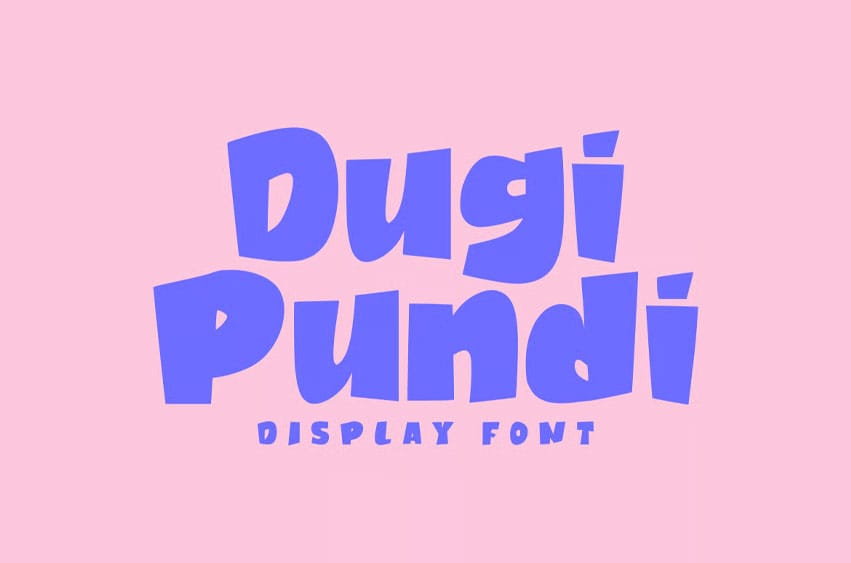
Dugi Pundi Font Display Font. It is suitable for flyers, posters, novels, letterheads, or any design requirements you want to be awesome.
It will certainly amaze your readers.